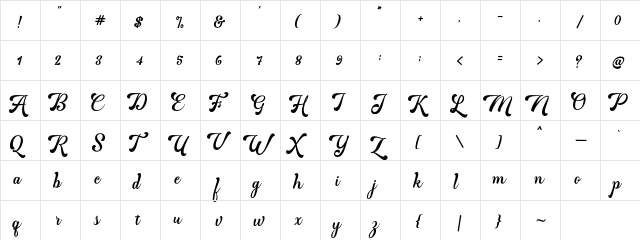
Martine Script Regular
| Foundry | Kurniadi Saputra |
| Designer | Kurniadi Saputra |
Design Context for Martine Script Typeface
Martine Script flows with the natural rhythm of handwritten lettering, making it ideal for designs that call for warmth and personal expression.
Font Pairing: Combine Martine Script with a simple geometric sans for maximum contrast — the tension between flowing curves and clean structure is a classic typographic pairing.
Pro Tip: Use Martine Script for short runs of text — names, titles, or taglines. Extended body copy in script faces tires the eye quickly.